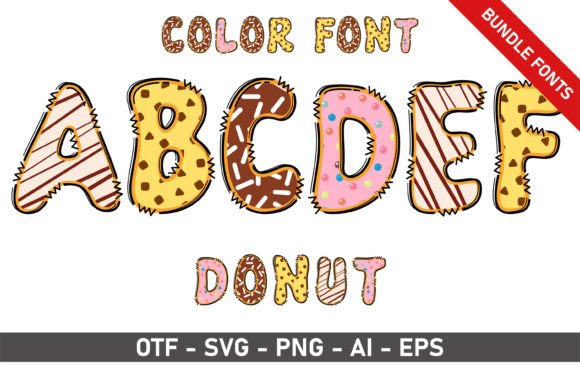
Donut Bundle Font: A Playful and Artistic Font for Creative Designs
The Donut Bundle Font is a delightful and whimsical font that has gained popularity among designers and artists. Its playful and artistic feel makes it an ideal choice for a variety of creative projects, including children’s books, posters, invitations, greeting cards, and more. In this article, we will explore the features and benefits of the Donut Bundle Font, its compatibility with different design programs and cutting machines, and provide tips on how to use it effectively in your designs.
The Characteristics of Donut Bundle Font
The Donut Bundle Font is a unique and eye-catching font that is characterized by its whimsical and playful feel. Its design is inspired by the sweet and colorful world of donuts, making it perfect for projects that require a fun and artistic touch. The font comes in two versions: a black version and a color version. The black version is compatible with Cricut Design Space and other cutting machines, making it ideal for crafters and makers. The color version, on the other hand, is compatible with certain design programs, including PhotoShop, Illustrator, Silhouette, and Inkscape.
Use Cases for Donut Bundle Font
The Donut Bundle Font is a versatile font that can be used in a variety of creative projects. Here are some examples of use cases where this font shines:
- Children’s Books: The Donut Bundle Font is perfect for children’s books, as it creates an engaging and playful reading experience for young audiences. Its whimsical design and colorful feel make it an ideal choice for storybooks, picture books, and early readers.
- Posters and Flyers: The font’s playful and artistic feel makes it perfect for posters and flyers that require a fun and eye-catching design. Whether you’re promoting a concert, a sale, or a community event, the Donut Bundle Font is sure to grab attention.
- Invitations and Greeting Cards: The font’s whimsical design makes it perfect for invitations and greeting cards that require a personal and artistic touch. Whether you’re sending a birthday card, a wedding invitation, or a holiday greeting, the Donut Bundle Font is sure to add a touch of personality to your design.
Tips on How to Use Donut Bundle Font
Here are some tips on how to use the Donut Bundle Font effectively in your designs:
- Pair it with Other Fonts: The Donut Bundle Font can be paired with other fonts to create a unique and interesting design. Try pairing it with a serif font for a contrasting look or with another script font for a cohesive look.
- Experiment with Colors: The color version of the font offers a range of colors that can be used to add a pop of color to your design. Experiment with different colors to find the one that works best for your project.
- Use it for Headings and Titles: The Donut Bundle Font is perfect for headings and titles, as it creates a bold and eye-catching design. Use it to add a touch of personality to your design and make it stand out.
In conclusion, the Donut Bundle Font is a playful and artistic font that is perfect for creative designs. Its whimsical feel and colorful design make it an ideal choice for children’s books, posters, invitations, greeting cards, and more. With its compatibility with different design programs and cutting machines, it’s easy to use and versatile. By following the tips outlined in this article, you can use the Donut Bundle Font to create unique and eye-catching designs that stand out from the crowd.